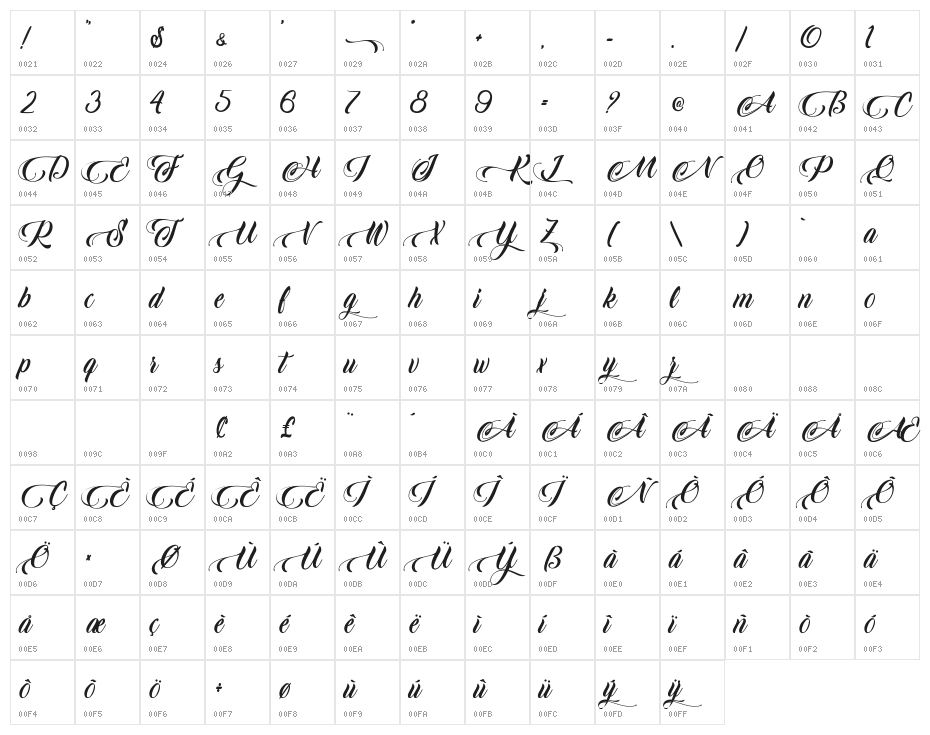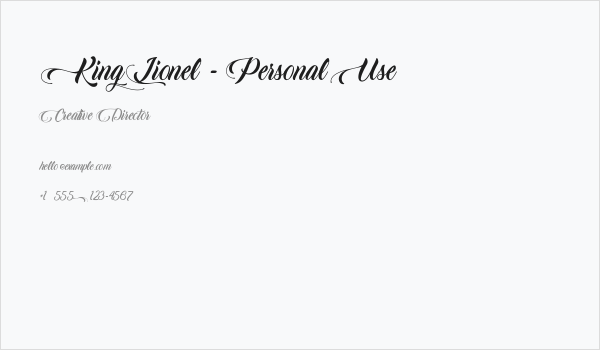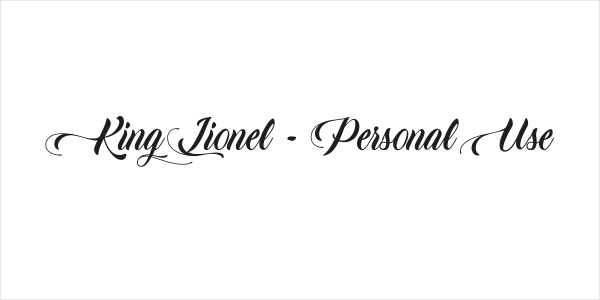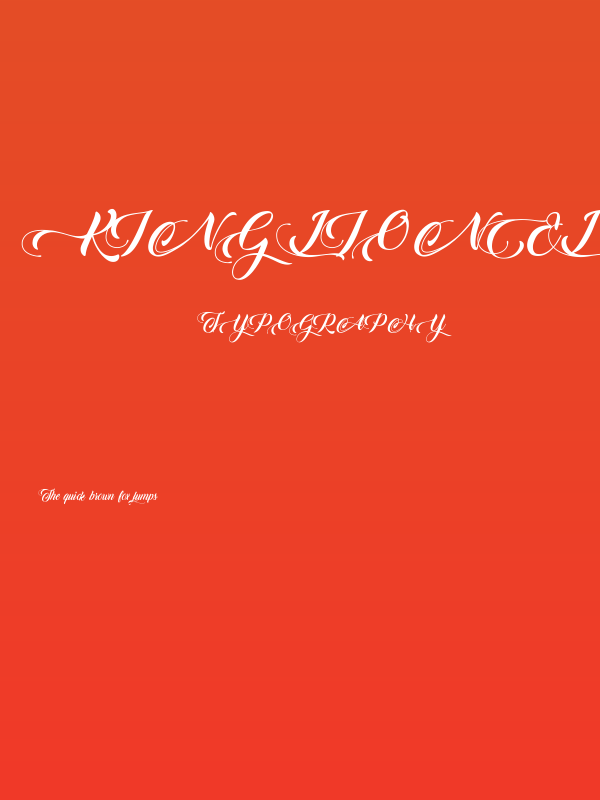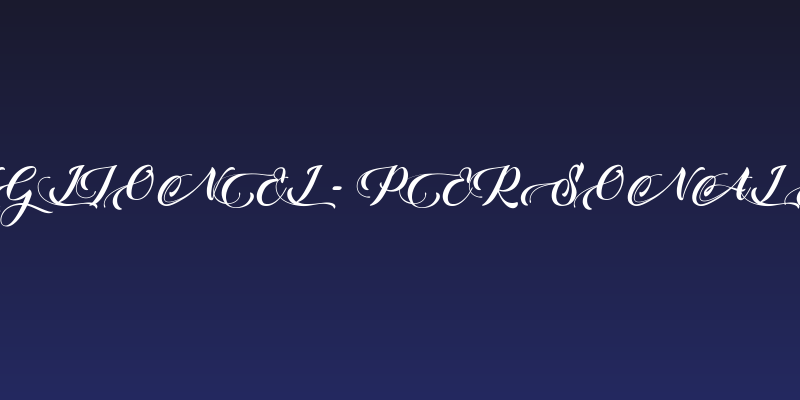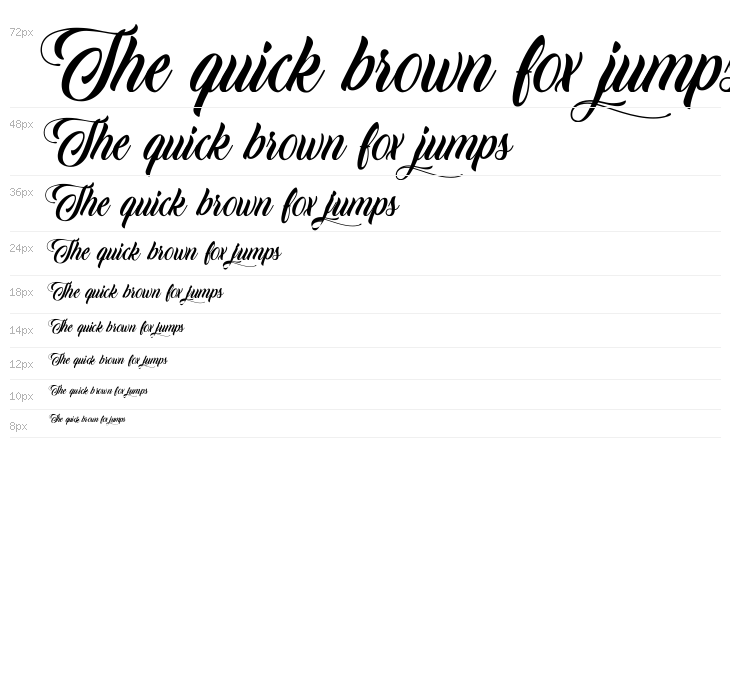
King Lionel - Personal Use Font
King Lionel - Personal Use Description
This font features an elegant and flowing script style, characterized by its ornate and decorative letterforms. The uppercase letters are embellished with intricate swashes and flourishes, giving them a regal and sophisticated appearance. The lowercase letters maintain a consistent flow, with smooth curves and a slightly slanted orientation that enhances the script's fluidity. The numerals are designed with a similar flair, incorporating subtle curves that align with the overall aesthetic. Special characters are thoughtfully integrated, maintaining the font's cohesive and artistic style.
Use CaseLogos, Invitations, Decorative Text
Proposed ProjectsIdeal for wedding invitations, luxury branding, greeting cards, and elegant packaging designs.